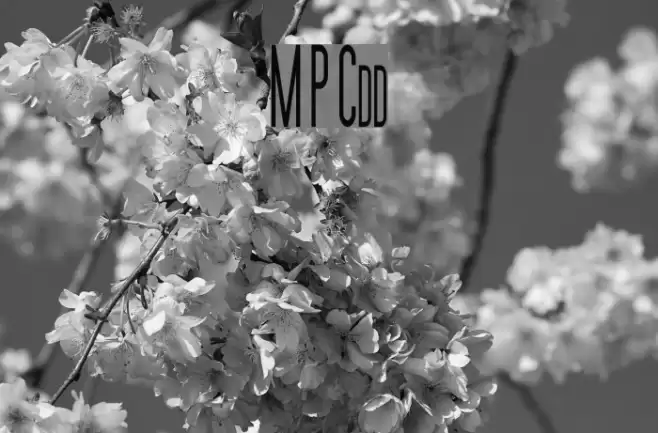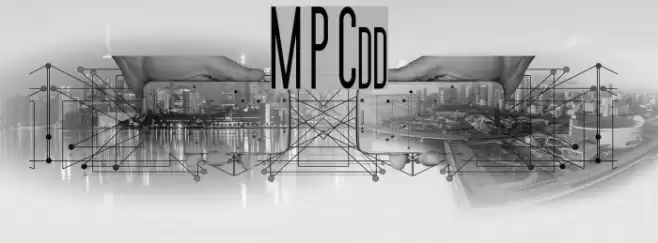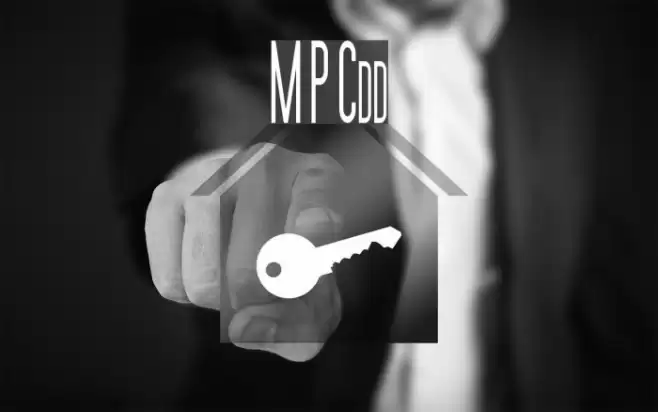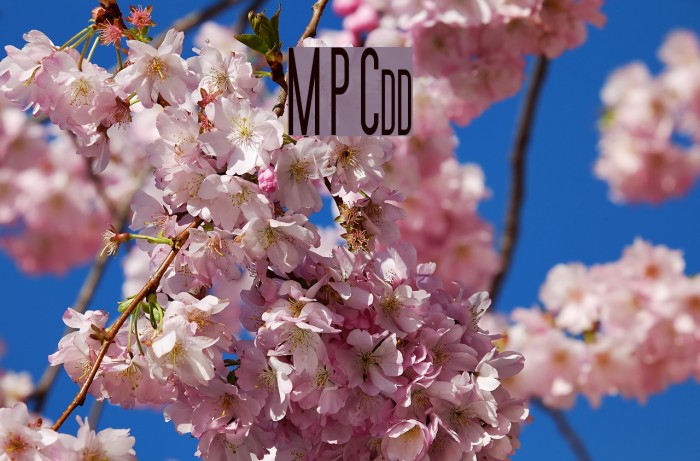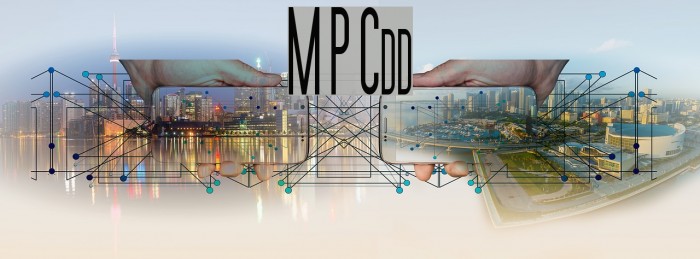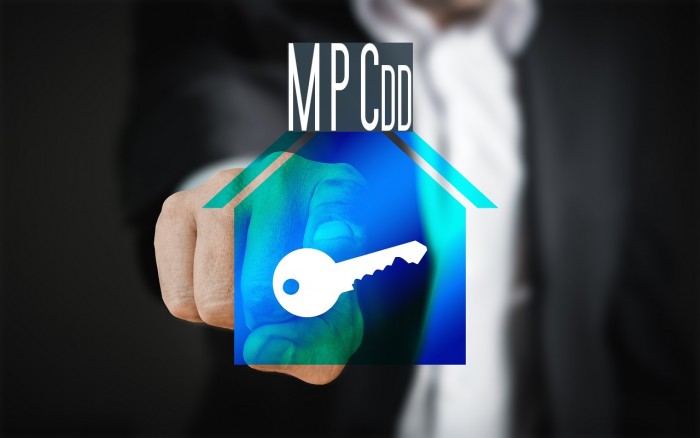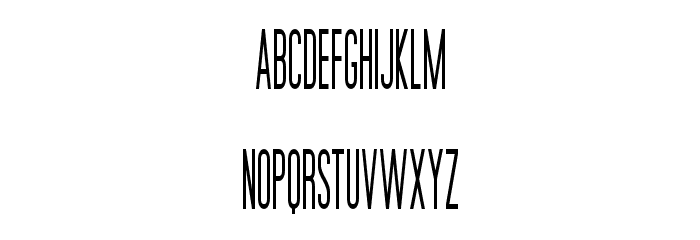
Movie Poster Condensed Font
Movie Poster Condensed Description
This font features a tall, narrow design with clean, straight lines and a modern aesthetic. The characters are uniformly condensed, giving it a sleek and efficient appearance. The uppercase and lowercase letters maintain consistent proportions, enhancing readability while preserving a distinct style. The numerals are similarly designed, with a uniform height that aligns well with the overall character set. Special characters are included, maintaining the same condensed and streamlined look. This font is ideal for projects that require a contemporary and professional feel, such as movie posters or advertising materials.
A modern, condensed font with clean lines and a sleek appearance from Decorative fonts.
- Proposed Projects: Ideal for movie posters, advertising, branding, and editorial design.